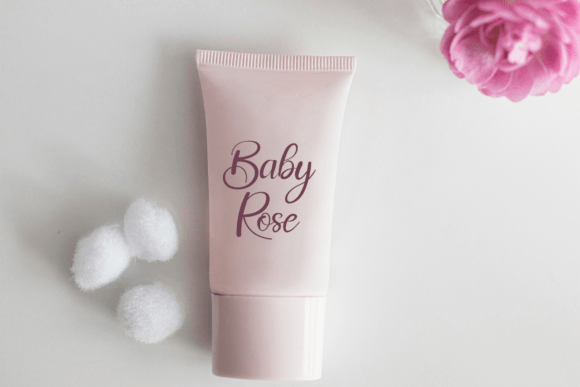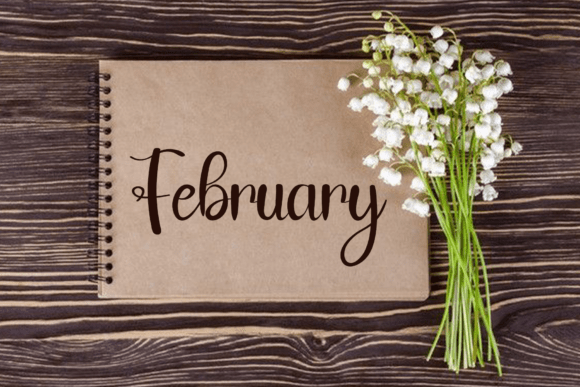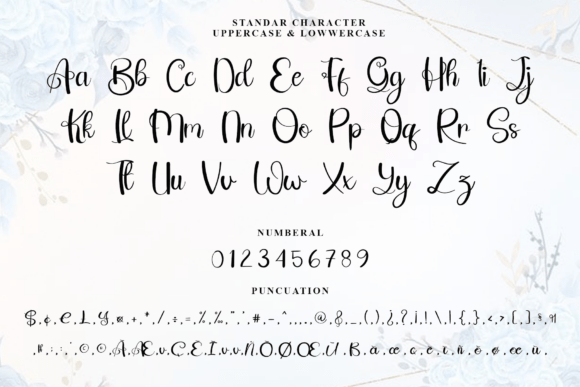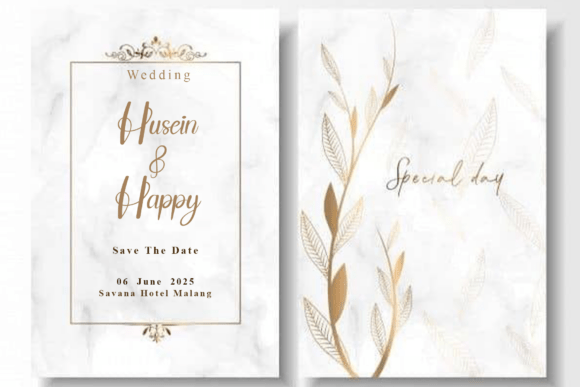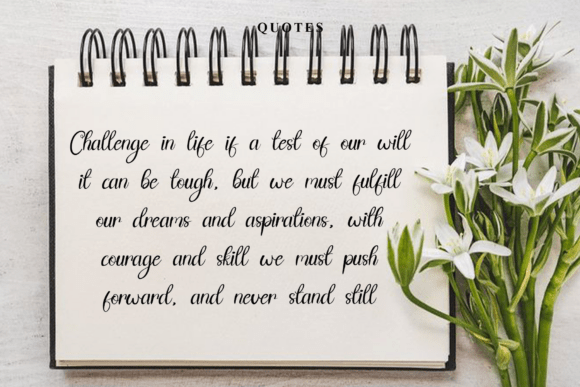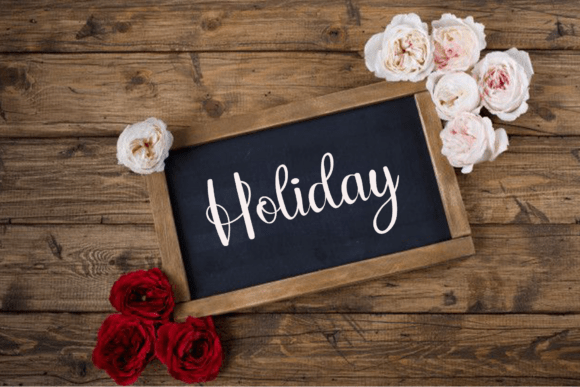
Introducing Calendar Font: A Natural Handwritten Delight for Crafters and Designers
Are you tired of using the same old fonts for your invitations, greeting cards, and celebration banners? Look no further than Calendar Font, a beautiful, natural handwritten font that’s perfect for adding a personal touch to your designs. With its original and organic design, Calendar Font is sure to make your creations stand out from the crowd.
What is Calendar Font?
Calendar Font is a carefully crafted, handwritten font that’s designed to resemble natural handwriting. Its unique and organic design makes it perfect for a wide range of creative projects, from invitations and birthday cards to event banners and gift boxes. Whether you’re a designer, crafter, or DIY enthusiast, Calendar Font is a versatile and stylish addition to your font collection.
Key Features of Calendar Font
- Natural Handwritten Design: Calendar Font boasts a beautiful, natural handwritten design that’s perfect for creating personalized and unique designs.
- Original and Organic: With its original and organic design, Calendar Font is sure to add a touch of elegance and sophistication to your creations.
- Versatile: Whether you’re creating invitations, greeting cards, event banners, or gift boxes, Calendar Font is a versatile font that can be used for a wide range of projects.
- Perfect for Crafters: Calendar Font is a great choice for crafters who love working with Cricut machines, Silhouette projects, and other DIY crafts.
Uses for Calendar Font
So, what can you create with Calendar Font? The possibilities are endless! Here are some ideas to get you started:
- Invitations: Create beautiful, personalized invitations for weddings, birthday parties, baby showers, and other celebrations.
- Birthday Cards: Add a special touch to your birthday cards with Calendar Font’s elegant and handwritten design.
- Event Banners: Create eye-catching event banners for parties, festivals, and other events.
- Greeting Cards: Design heartfelt greeting cards for holidays, special occasions, and everyday moments.
- Gift Boxes: Add a personal touch to your gift boxes with Calendar Font’s beautiful and elegant design.
- Cricut Crafts: Use Calendar Font to create custom Cricut crafts, such as vinyl decals, iron-on designs, and paper crafts.
- Silhouette Projects: Calendar Font is perfect for Silhouette projects, including custom signs, wall art, and DIY decor.
Why Choose Calendar Font?
With so many fonts to choose from, why should you choose Calendar Font? Here are just a few reasons:
- Unique Design: Calendar Font’s original and organic design sets it apart from other fonts.
- Elegant and Sophisticated: Calendar Font adds a touch of elegance and sophistication to any design.
- Easy to Read: Despite its handwritten design, Calendar Font is easy to read and understand.
- Versatile: Calendar Font can be used for a wide range of projects, from formal events to casual DIY crafts.
If you’re looking for a beautiful, natural handwritten font for your designs, look no further than Calendar Font. With its original and organic design, Calendar Font is perfect for adding a personal touch to your invitations, greeting cards, event banners, and more. Whether you’re a designer, crafter, or DIY enthusiast, Calendar Font is a versatile and stylish addition to your font collection.